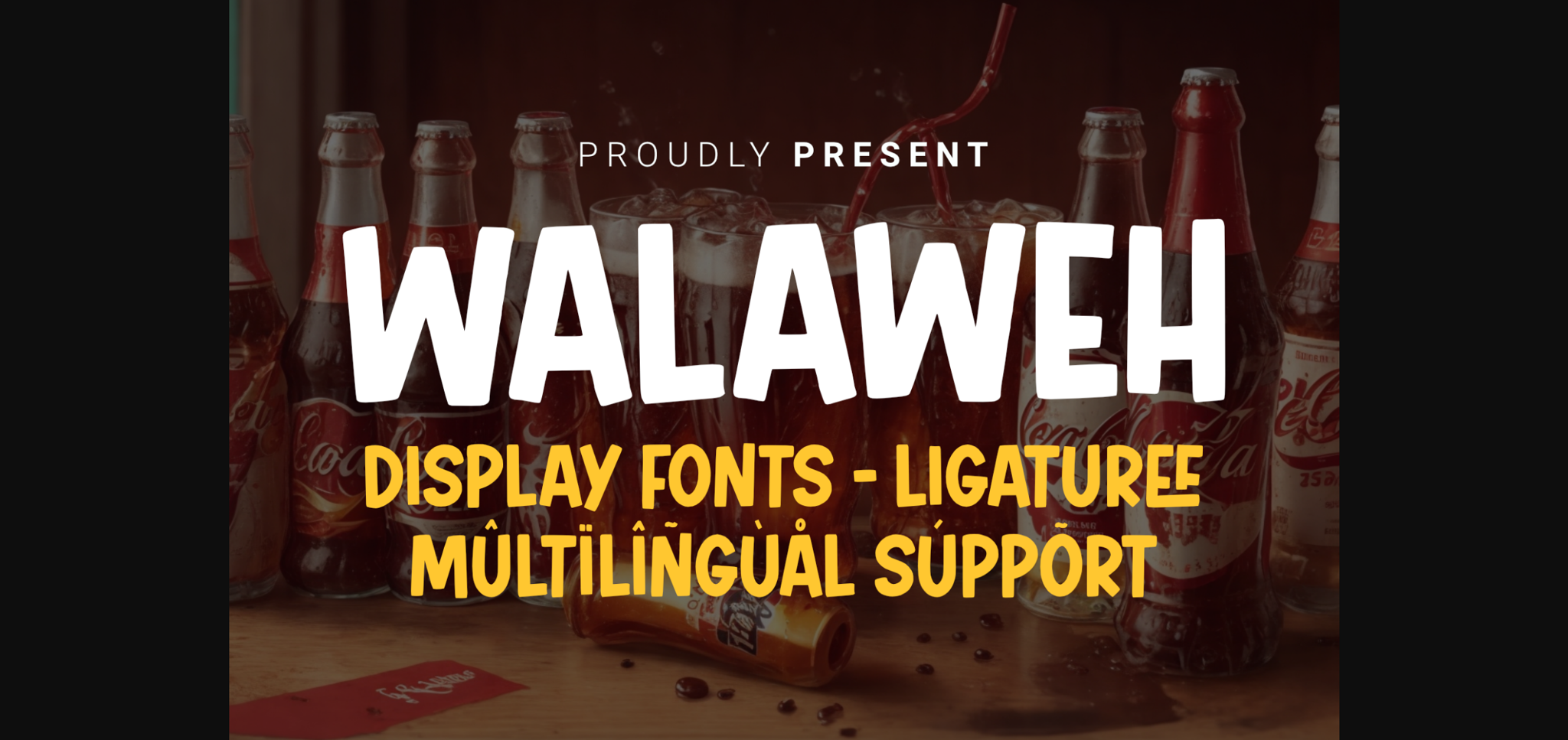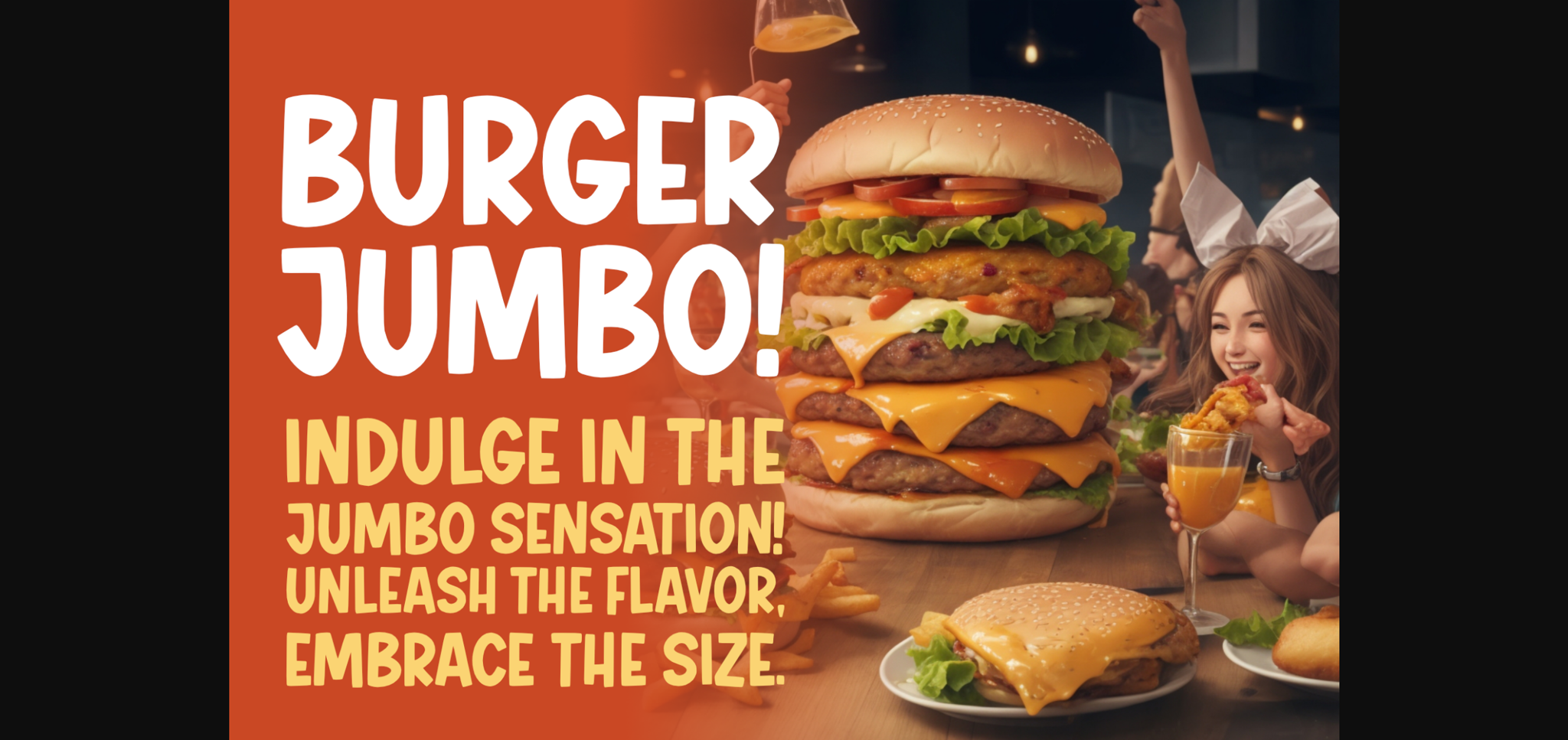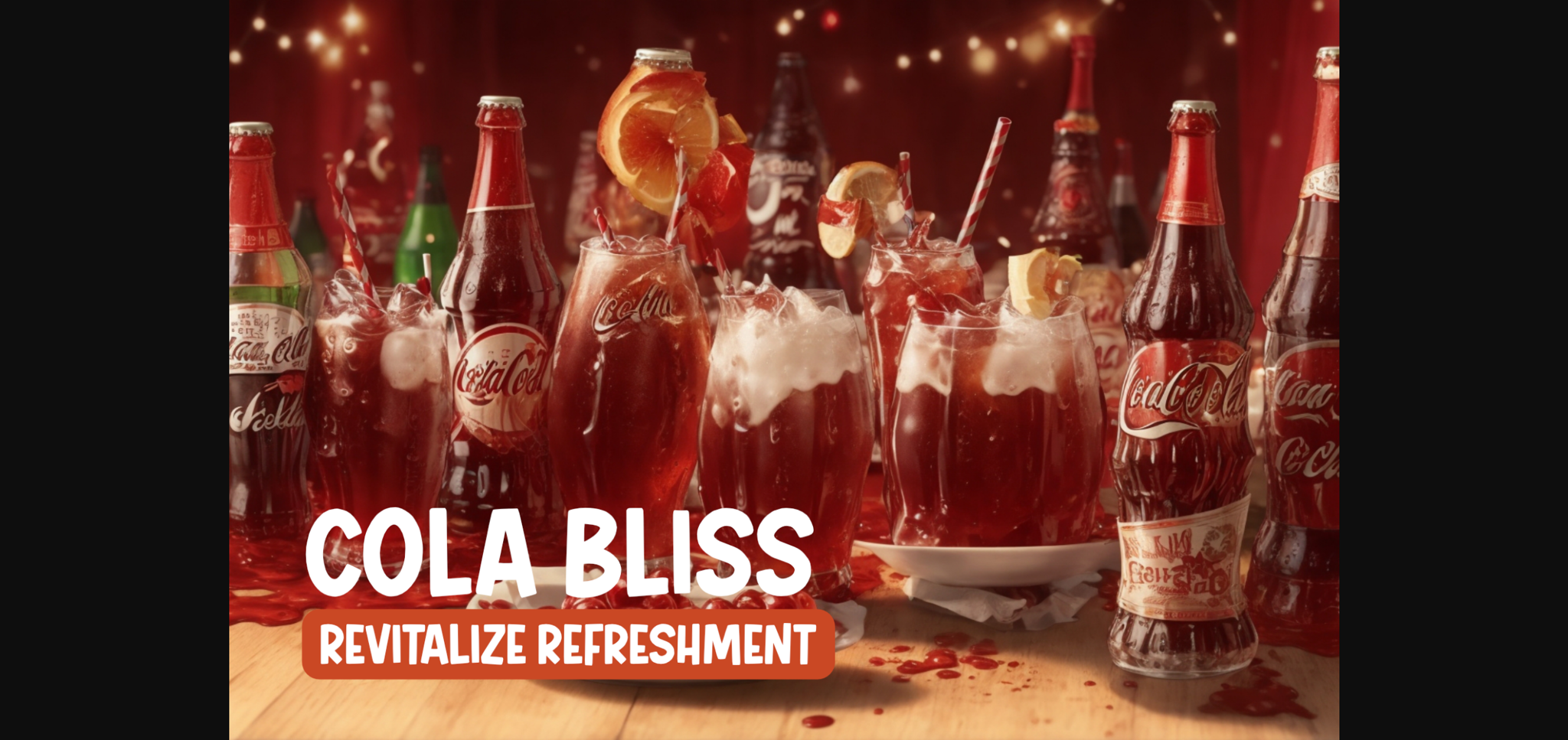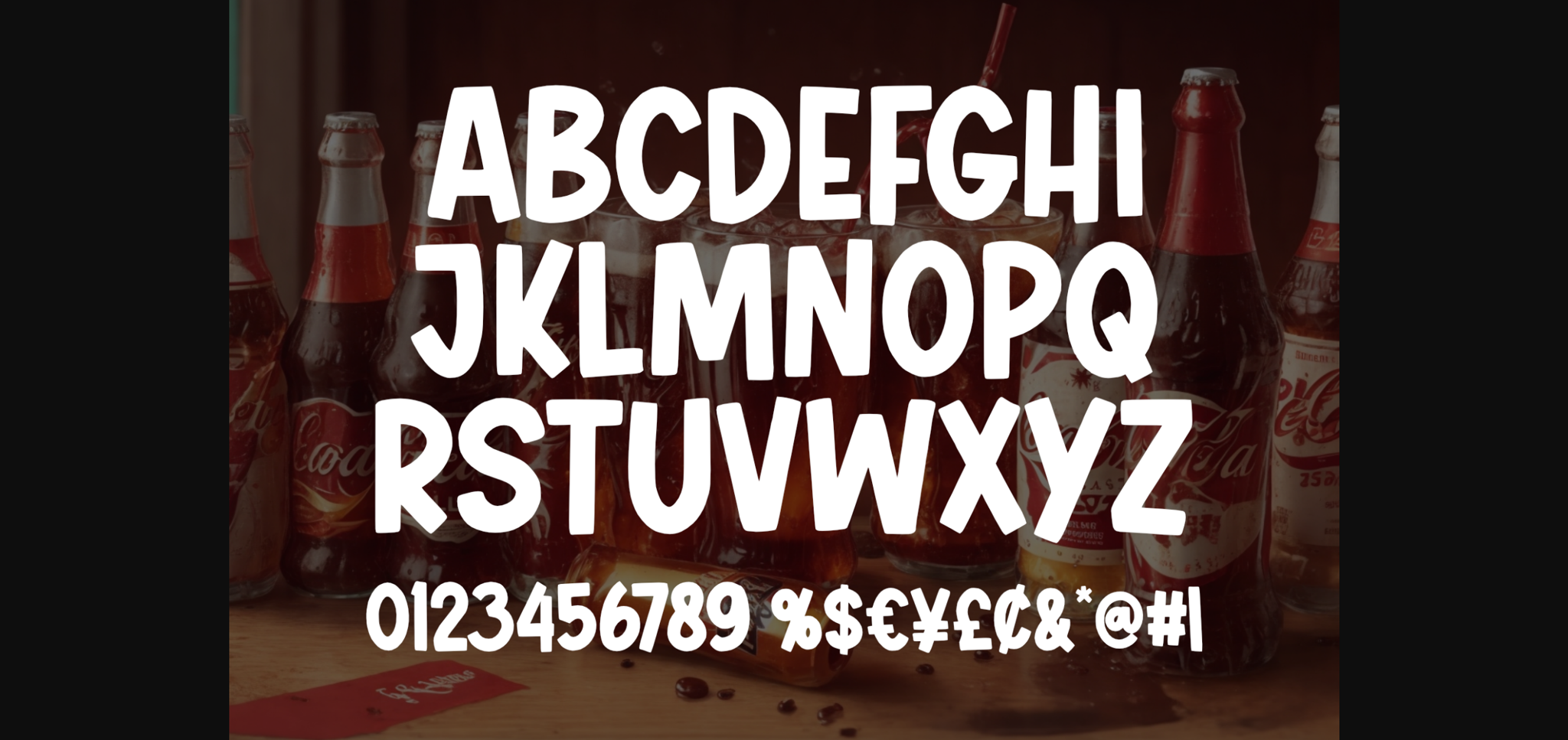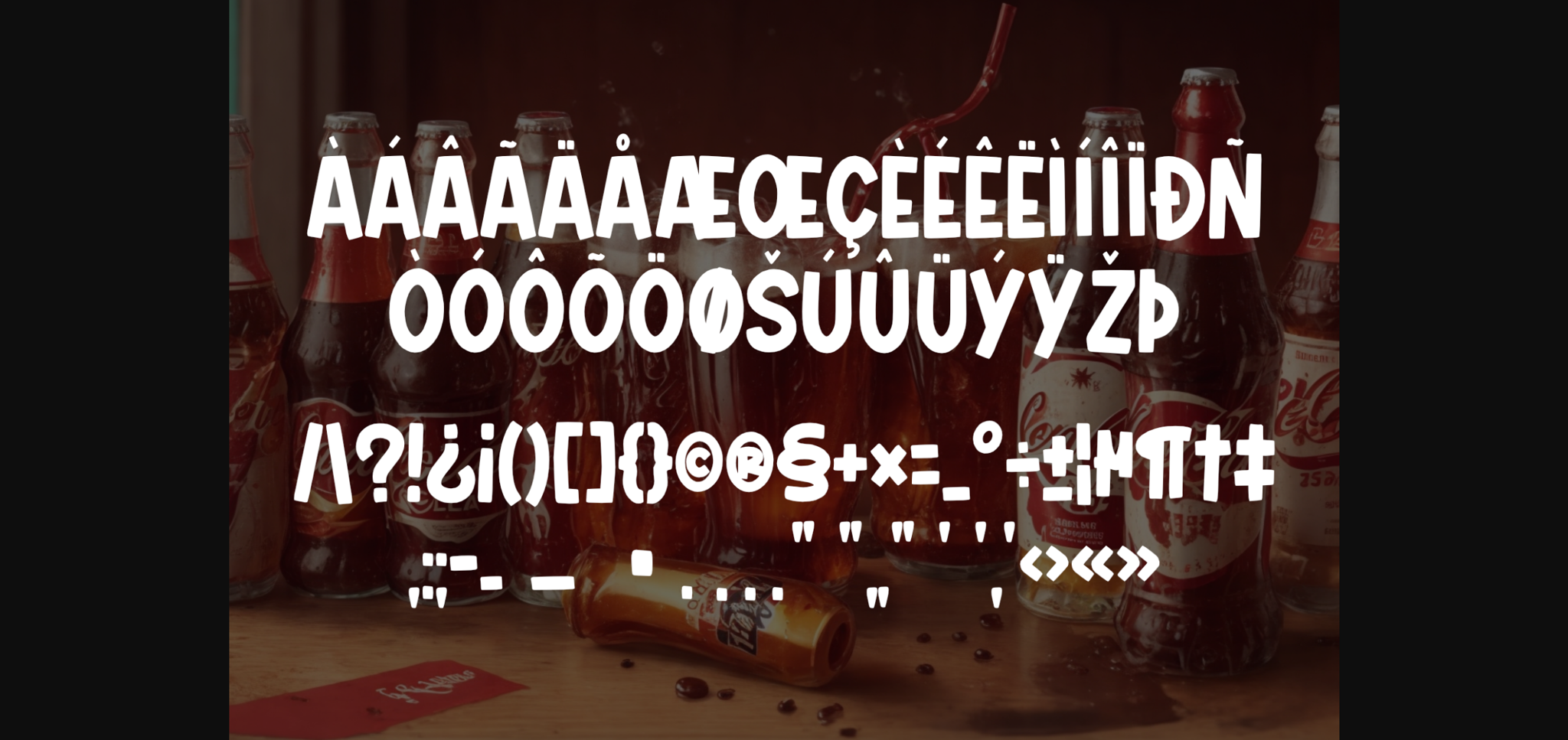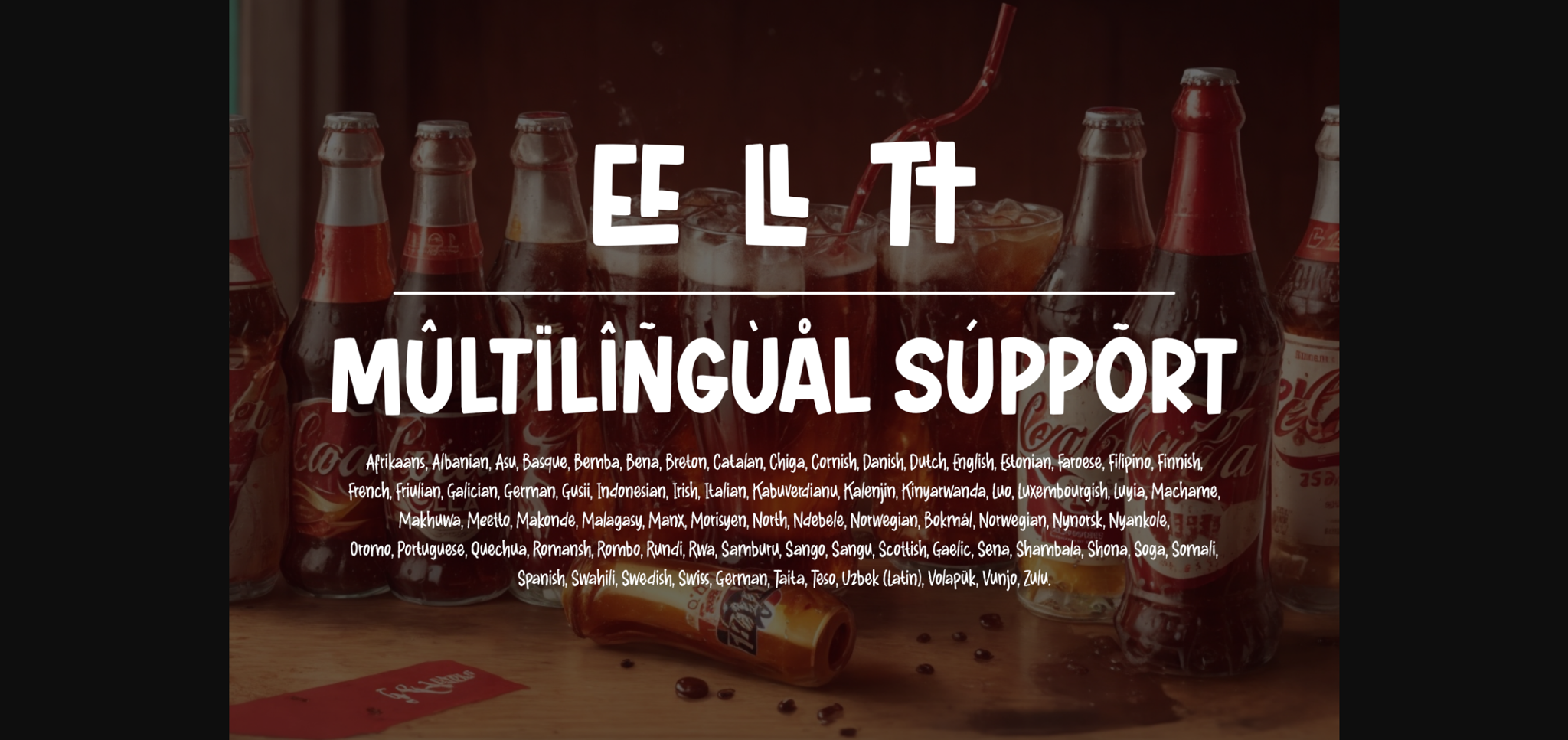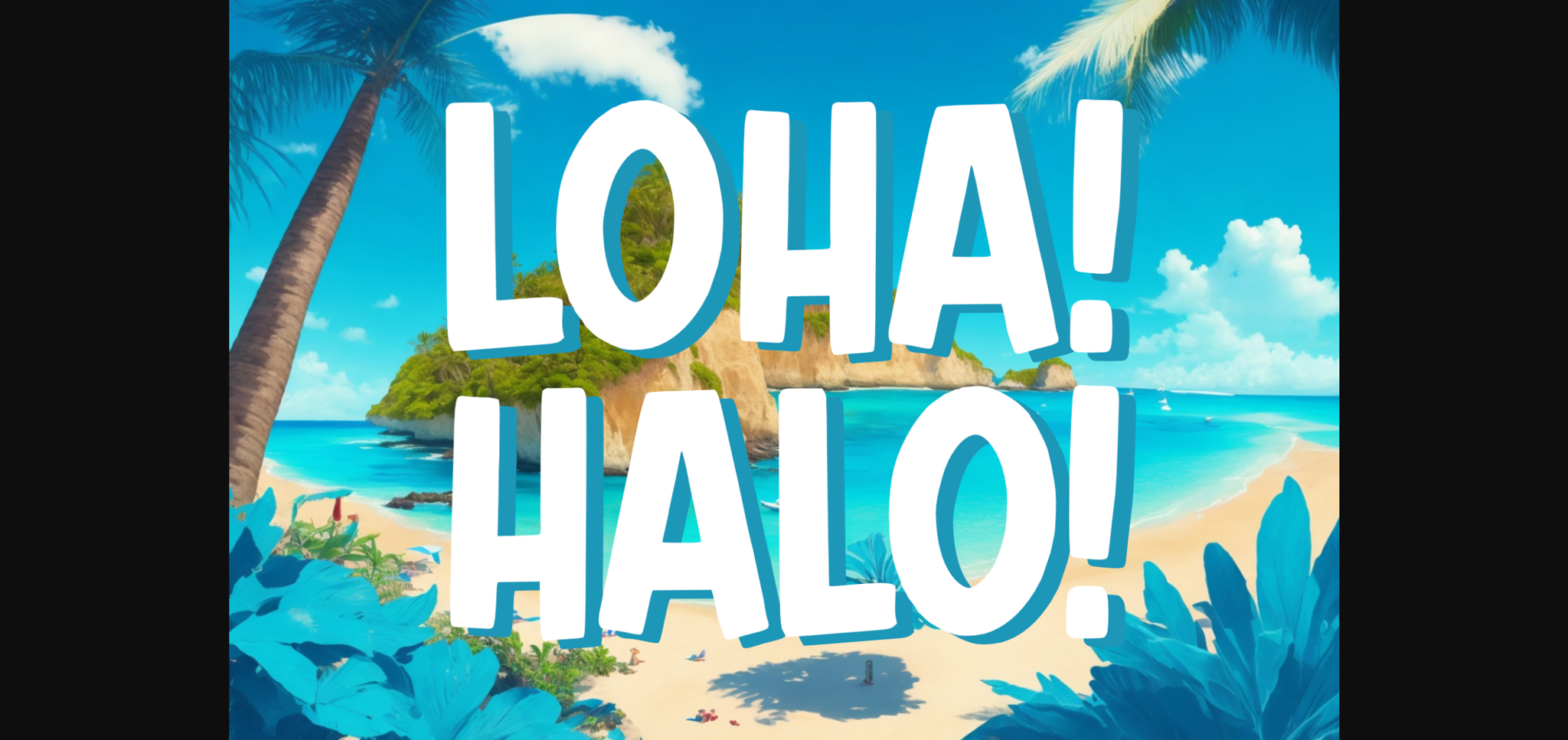
Walaweh Font
About Walaweh Font
Walaweh is a fun and playful sans-serif font that infuses designs with lively charm. Its whimsical letterforms, marked by playful curves and unique shapes, create a delightful and vibrant aesthetic. Ideal for projects seeking a dynamic and lighthearted vibe, Walaweh adds a cheerful and spirited flair to your creative expressions.